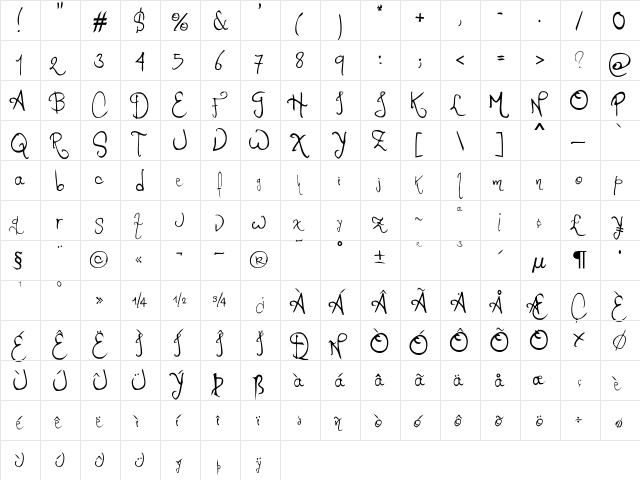
Romance Fatal 2.00 (Afliccion)
| Designer | 頠Juan Casco, 2009 |
Design Context for Romance Fatal Typeface
Romance Fatal is a composed and adaptable typeface that performs quietly and consistently across a wide range of design contexts.